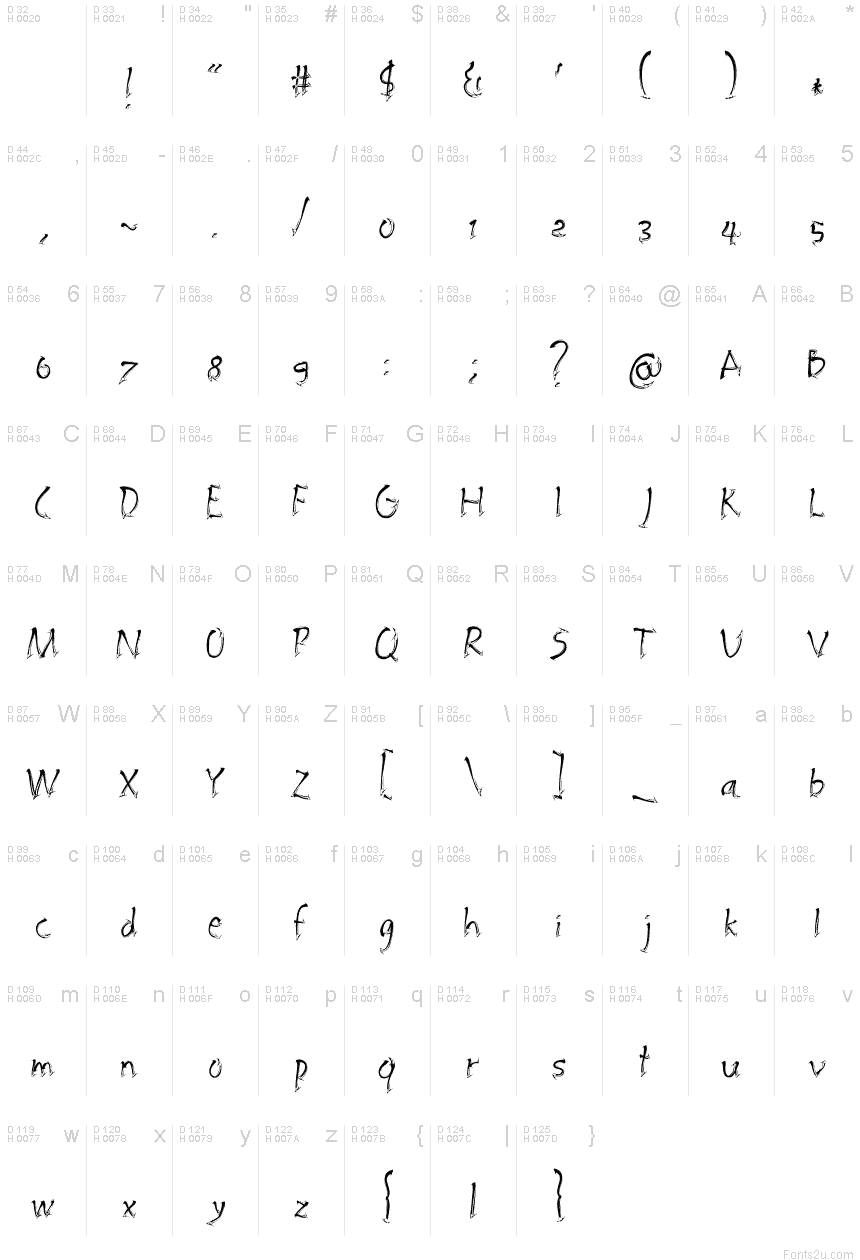
Embrush
Embrush font by Typephases design is a free brush script font with a raw, scratchy ink feel-like a dry marker dragged fast across paper. The strokes look bristly and uneven, with little splatters and sharp flicks that keep the wordmark lively and slightly rebellious.
Using Embrush, you’ll get instant energy on gig posters, album covers, streetwear logos, coffee bag labels, book covers, social headers, packaging, and sticker designs. Set it a touch larger so the ragged texture reads clearly, then pair it with a clean sans typeface for the details so the attitude stays front and center.